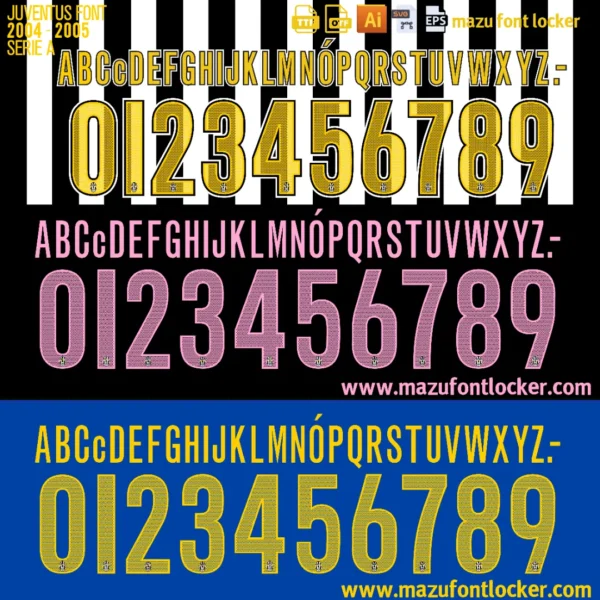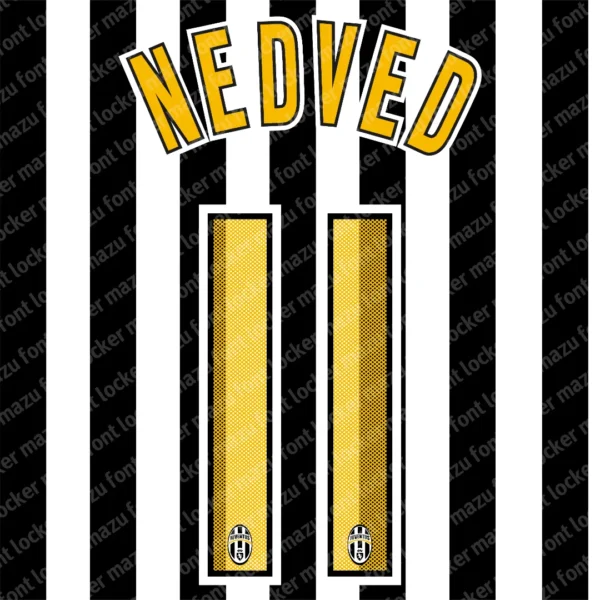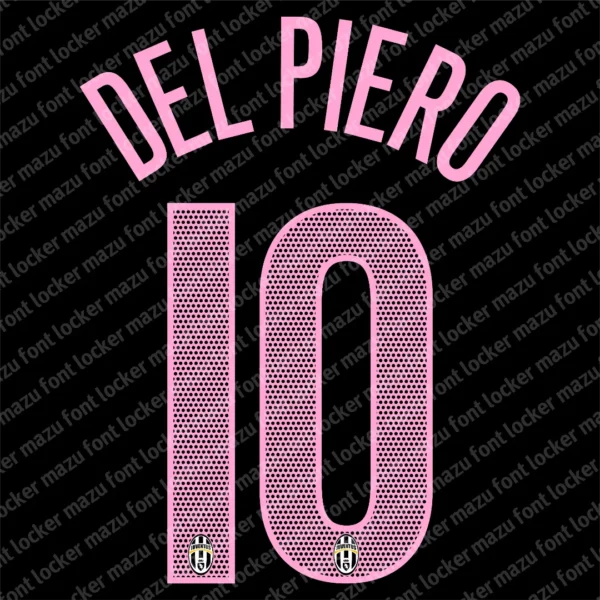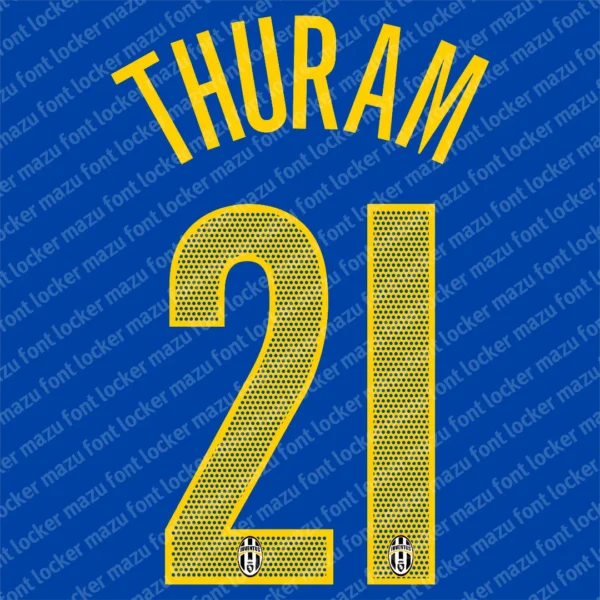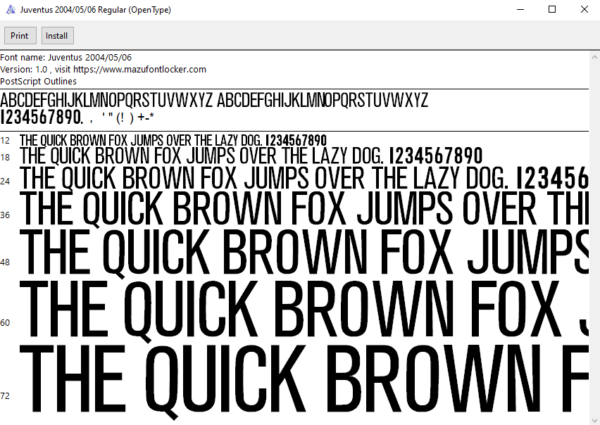
Juventus 2004-2005 Font Vector – Legendary Bianconeri Championship Masterpiece
The Juventus 2004-2005 Font perfectly recreates the sharp and elegant match-style lettering worn by Juventus during the highly successful 2004-2005 Serie A season. This font captures the classic, clean typography from the Fabio Capello era, featuring legendary players like Alessandro Del Piero, Gianluigi Buffon, Pavel Nedvěd, and David Trezeguet as they dominated the league. Ideal for creating authentic retro jersey mockups, vintage fan merchandise, football history graphics, social media content, and nostalgic sports designs that celebrate one of Juve’s golden periods. The download includes TTF, OTF, SVG, and EPS vector files for crisp, professional quality. As a result, it works seamlessly in Illustrator, Photoshop, Canva, Figma, Affinity Designer, and other major design tools.
Juventus Font Kit 2004/2005 – Authentic Serie A Typeface
The Juventus 2004-2005 Font is a premium typeface that accurately recreates the official match lettering worn by Juventus during the 2004/2005 Serie A season. This high-quality font kit captures the bold, elegant, and classic typography that defined the club’s kit during one of their most memorable campaigns.
Designed for professional designers and passionate Juventus fans, the Juventus 2004-2005 Font delivers perfect authenticity for creating retro jersey mockups, fan merchandise, matchday posters, social media graphics, and much more. It blends beautifully with the club’s iconic black-and-white striped kits from that legendary season.
This font stands out because of its sharp details and timeless finish. Every letter and number is crafted to match the exact style used on the players’ shirts during the 2004-2005 season. Whether you are making vintage shirt templates or nostalgic football content, the Juventus 2004-2005 Font gives your designs that authentic old-school Serie A atmosphere.
The letterforms in the Juventus 2004-2005 Font are bold, upright, and highly readable. The strokes have a strong and balanced weight that looks powerful on the back of jerseys while maintaining a clean and classic appearance.
The numerals use solid curves and firm edges, giving them a premium and confident look. This design ensures excellent legibility whether used in large print formats, digital mockups, or retro-style video content.
- Full uppercase A–Z and numbers 0–9 in authentic Juventus 2004-2005 style
- Special Juventus logo glyph for accurate shirt number detailing
- Create highly realistic retro Serie A jersey mockups with accurate lettering
- Design classic matchday posters, score graphics, and squad announcements
- Produce custom Juventus merchandise with a nostalgic football aesthetic
- Includes the exact logo glyph placement used under player numbers